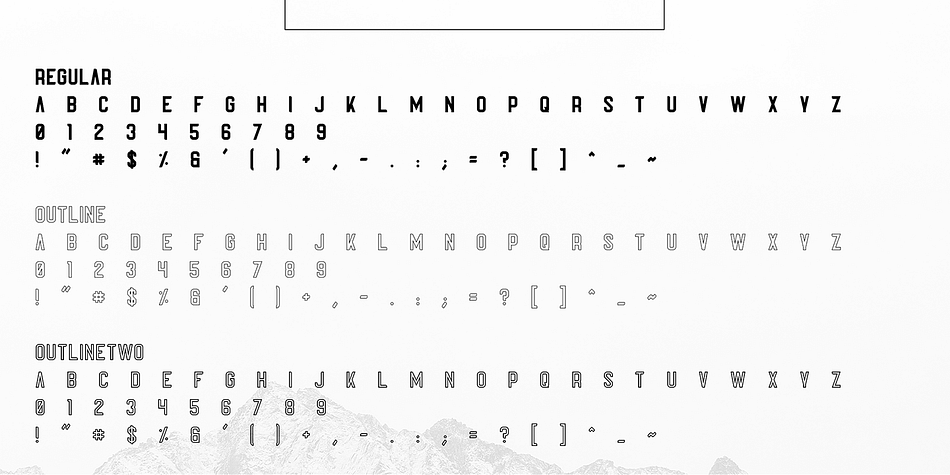
ASTRONAUT
Astronaut is a display sans font family. This typeface has six styles and was published by VPcreativeshop.
Introducing Astronaut Typeface
Astronaut is elegant, clean font with 6 styles and multilingual support.
It’s a very versatile font that works great in large and small sizes.
Astronaut is perfect for branding projects, home-ware designs, product packaging, magazine headers - or simply as a stylish text overlay to any background image.
Uppercase,lowercase, numeral,punctuation & Symbol
Regular
Long
Outline
Outlinetwo
Multilingual support